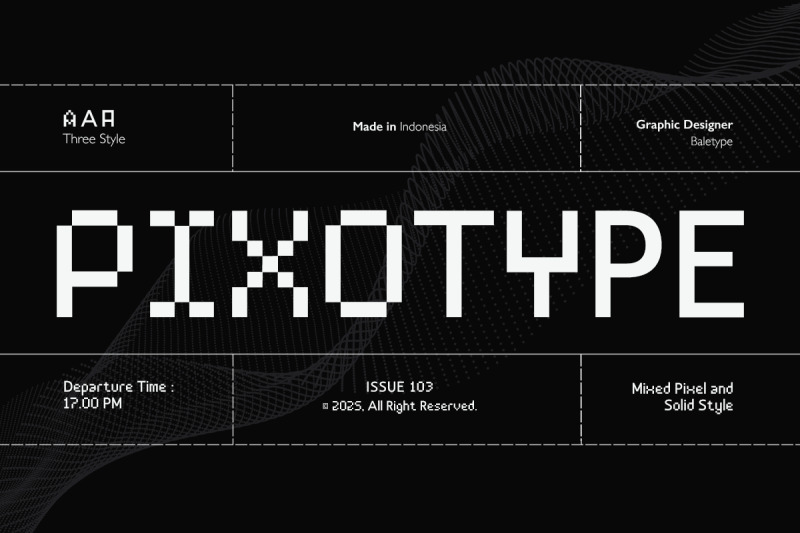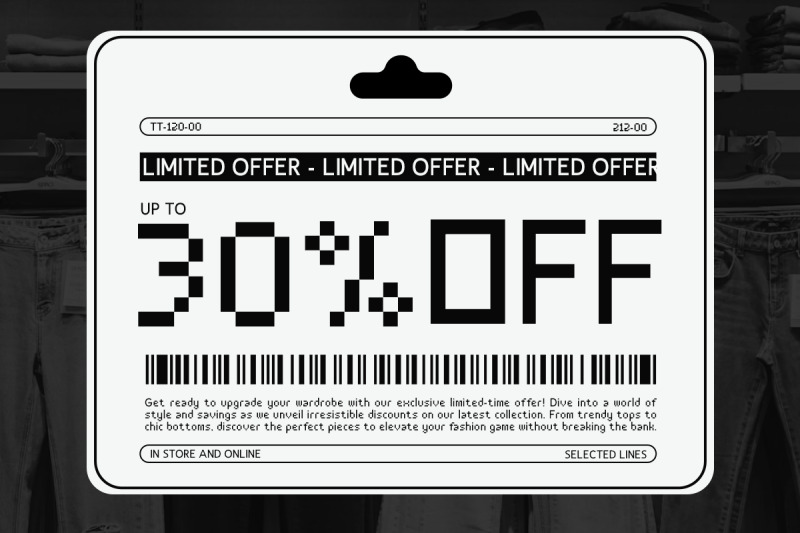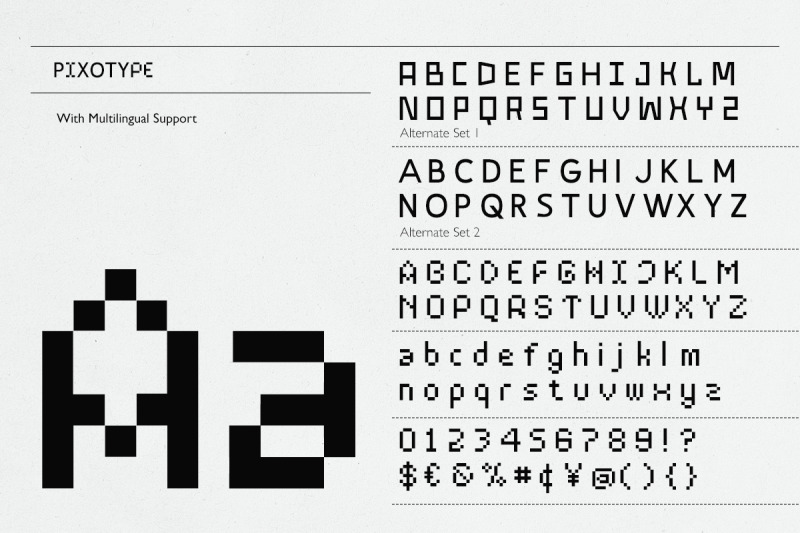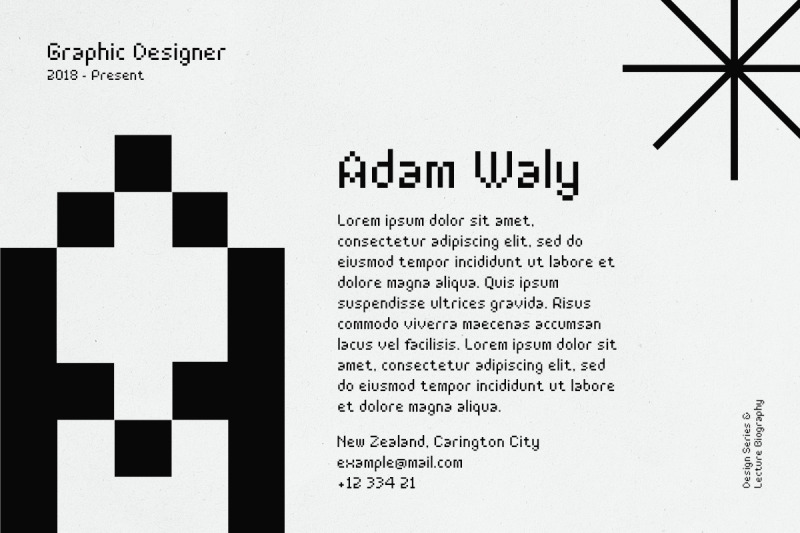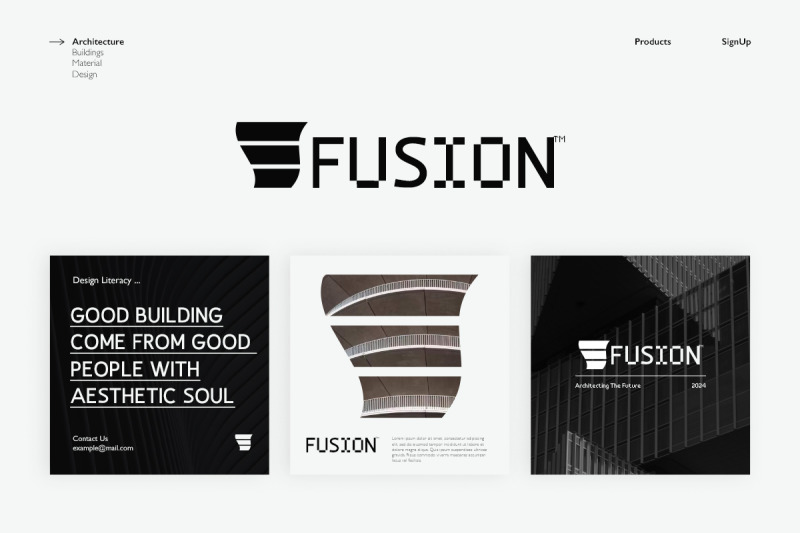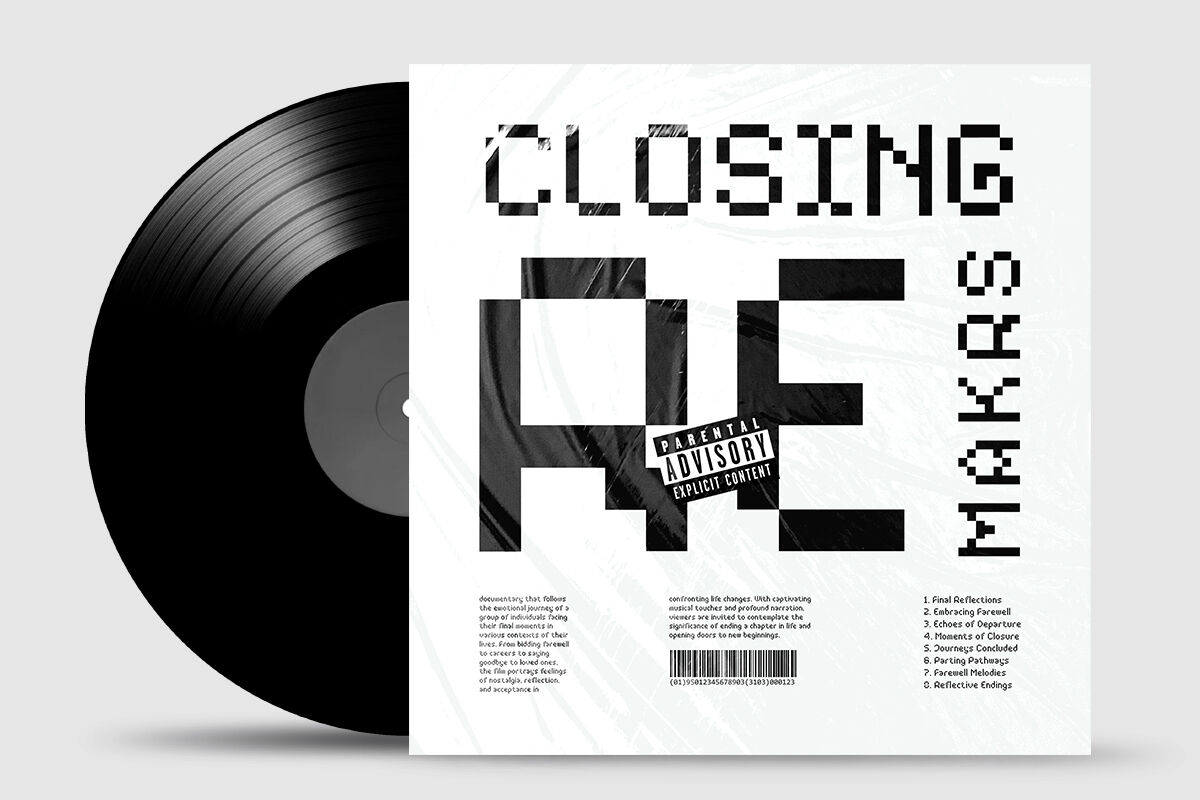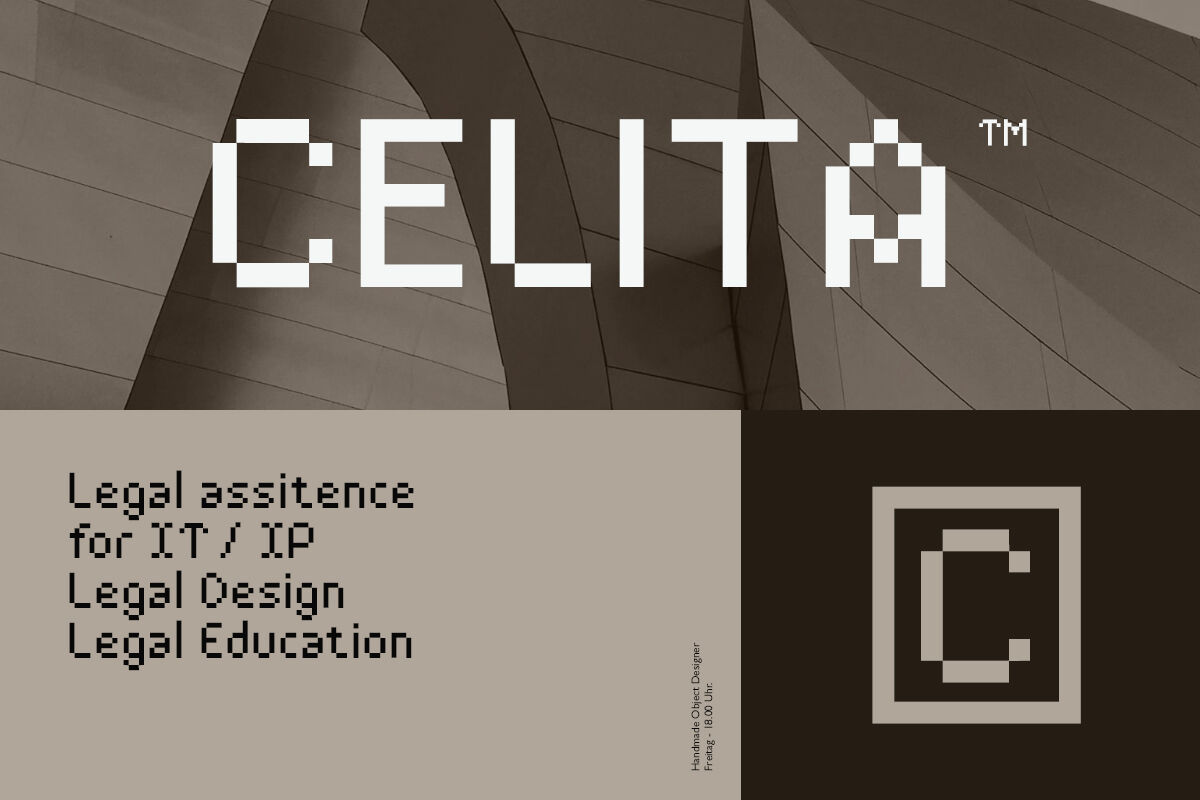
Pixotype - Stylish Pixel Font
Pixotype is a pixel sans with solid style as alternates. You can use this font for any purposes such as game, hi-tech poster, logotype, or even quotes. Including two stylish alternates set each uppercase characters that you combine to make your designs more trendy and stunning. This font also support multi language.